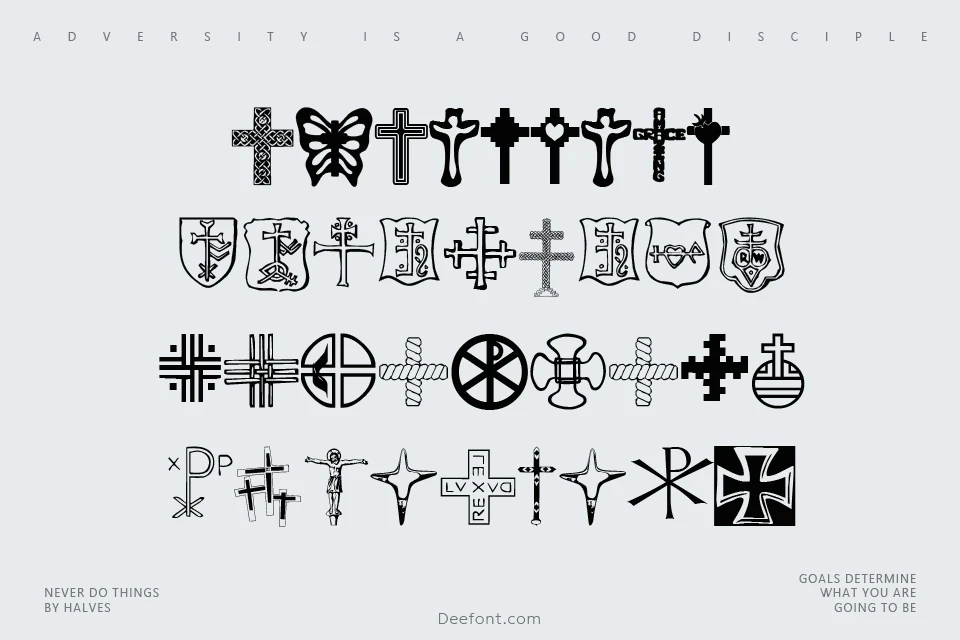
Christian Crosses Font
Christian Crosses font is a unique dingbat typeface created by Ben McGehee of UnAuthorized Type, inspired by his studies in Rome and observations of various church crosses. The font features a diverse collection of cross designs, including traditional crosses, Celtic crosses, the Assisi cross (Greek Tau), and decorative wooden crosses. It comes in five different font weights, all available as TrueType fonts. The designer created this font after noticing a need for a comprehensive cross font collection in online communities. While most variants are free for personal use, the font was designed with the intention to be used respectfully in ways that honor its religious significance.